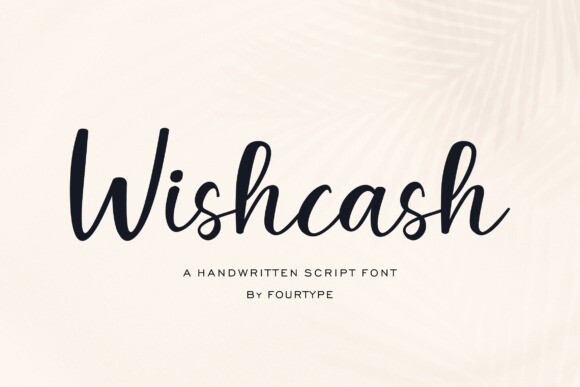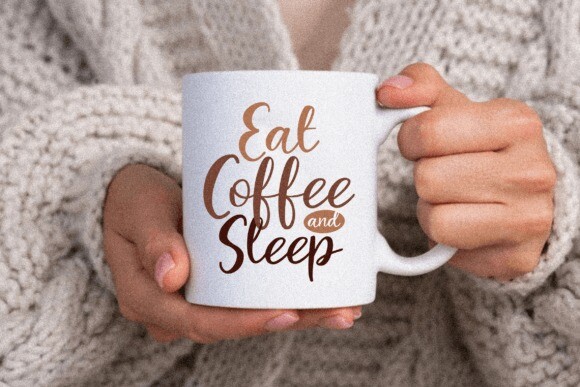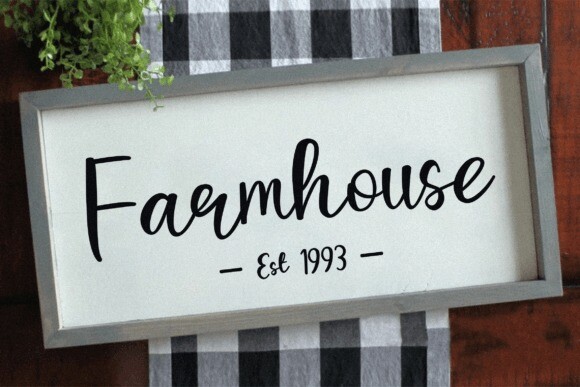
Wishcash Font
Wishcash Font is an exquisite handwritten font, masterfully designed to become a true favorite. It maintains its classy calligraphic influences while feeling contemporary and fresh. Fall in love with it and bring your projects to the highest levels!